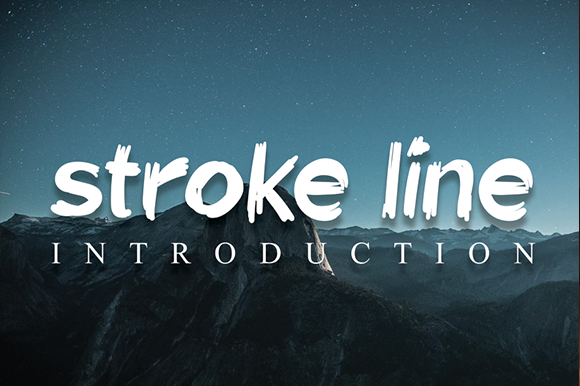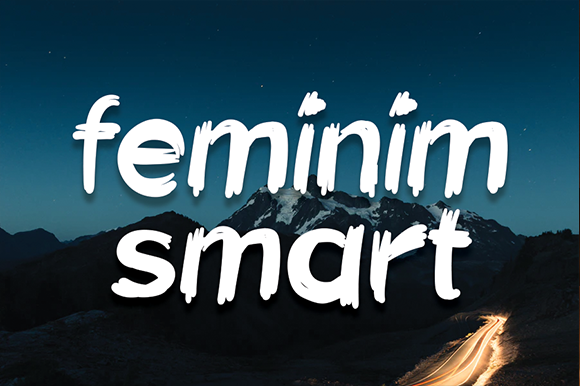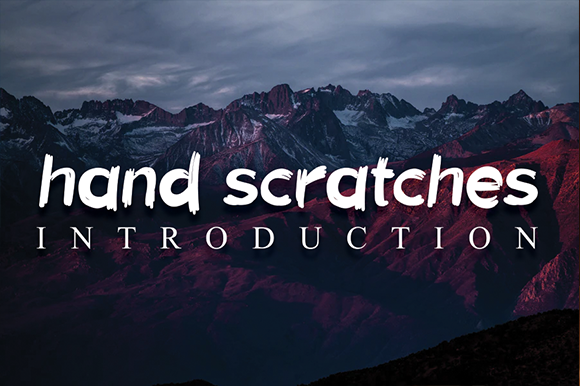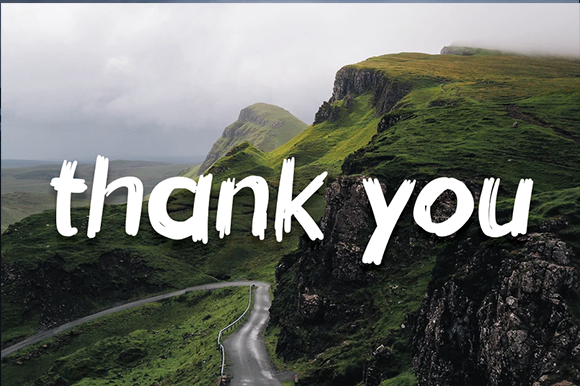
The Bloonspot Font: A Fun and Quirky Addition to Your Design Toolbox
I’ll never forget the time I was working on a branding project for a crafty client, and I just couldn’t find the right font to match her playful vibe. She wanted something that felt handmade, yet still polished enough for professional use. After hours of scrolling through font databases, I stumbled upon Bloonspot – a casual, fun display font that instantly clicked. In this article, I’ll share my love for Bloonspot, its features, and how to make the most of it in your designs.
An Honest Review of Bloonspot
Bloonspot is a display font created with a brush pen, giving it a clean and quirky feel. Here’s what I love about it:
- ✨ Unique character: Bloonspot has a distinct personality that sets it apart from other fonts.
- ✅ Ease of use: This font is incredibly easy to read, even at smaller sizes.
- 💡 Versatility: Bloonspot works well for logos, branding, social media, and crafty DIY projects.
While Bloonspot is an amazing font, it’s not without its quirks:
- 🤔 Limited use cases: As a display font, Bloonspot might not be the best choice for body text or lengthy content.
- ⚠️ Legibility at small sizes: While generally easy to read, Bloonspot can become a bit tricky to decipher at very small sizes (below 10pt).
Bloonspot comes with a range of OpenType features and glyphs that can add more personality to your text. Here are a few tips:
- Look for stylistic alternates to swap out letters or numbers for a more playful look.
- Experiment with ligatures to create a more fluid, connected text.
- Use glyphs to add decorative elements, such as flourishes or ornaments.
The Backstory of Bloonspot
Bloonspot was created by a talented designer who wanted to capture the essence of handmade crafting in a digital font. Inspired by the imperfections and quirks of brush-pen writing, Bloonspot is the perfect blend of playfulness and sophistication.
| What type of projects is Bloonspot best suited for? | Bloonspot is perfect for logos, branding, social media, and crafty DIY projects. |
| Can I use Bloonspot for body text? | While Bloonspot is easy to read, it’s primarily designed as a display font and might not be the best choice for lengthy content. |
| Is Bloonspot available in different weights or styles? | Currently, Bloonspot is available in a single weight, but its versatility and range of OpenType features make it suitable for various design applications. |